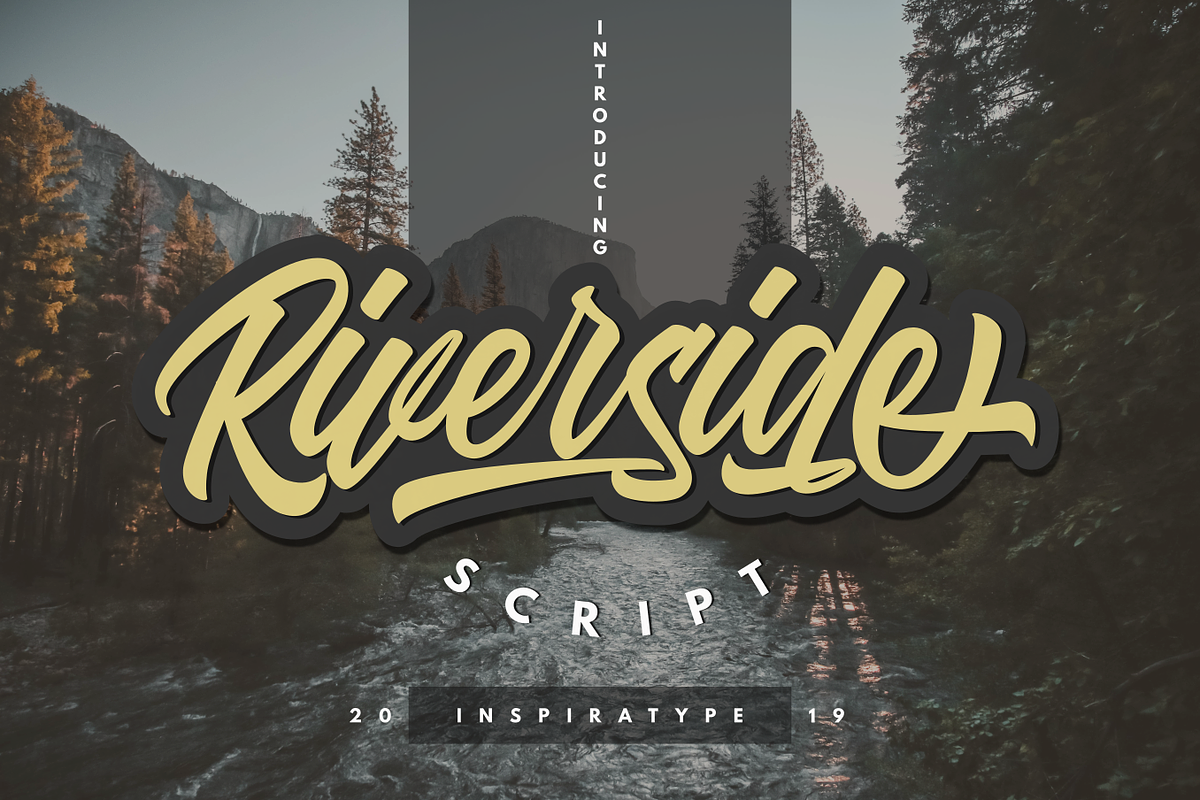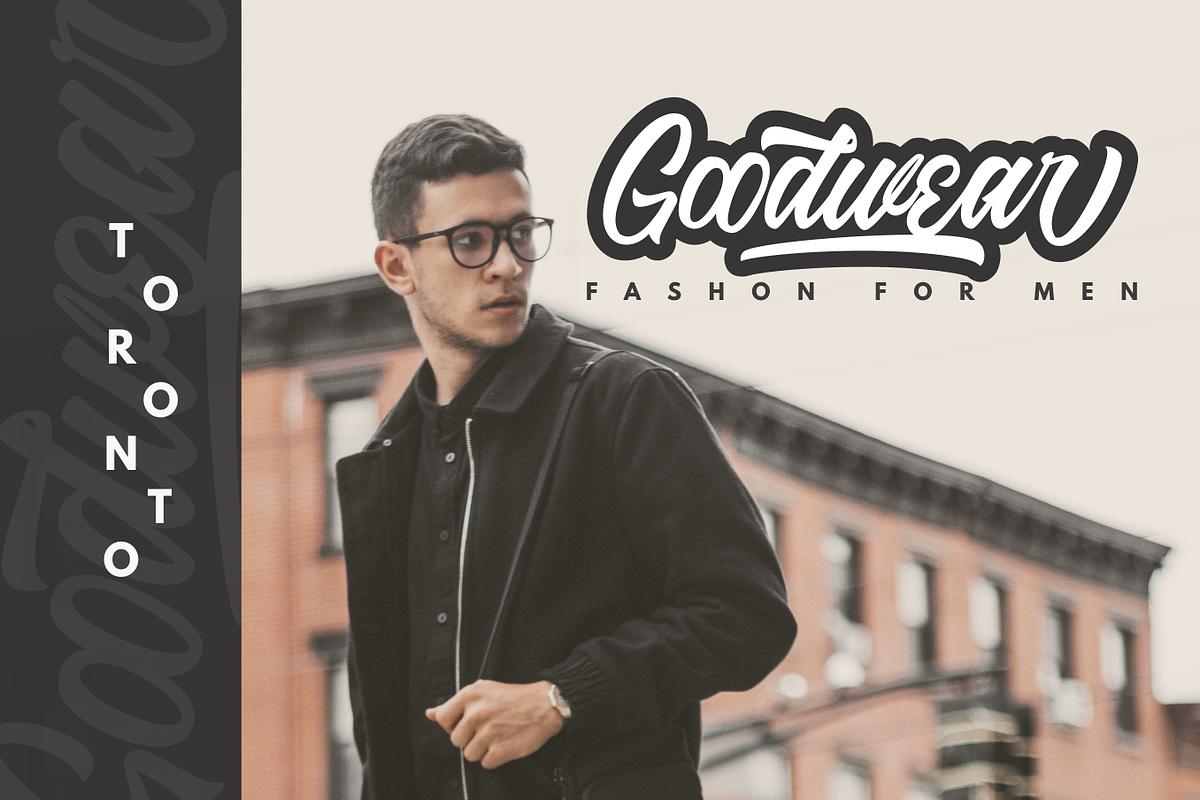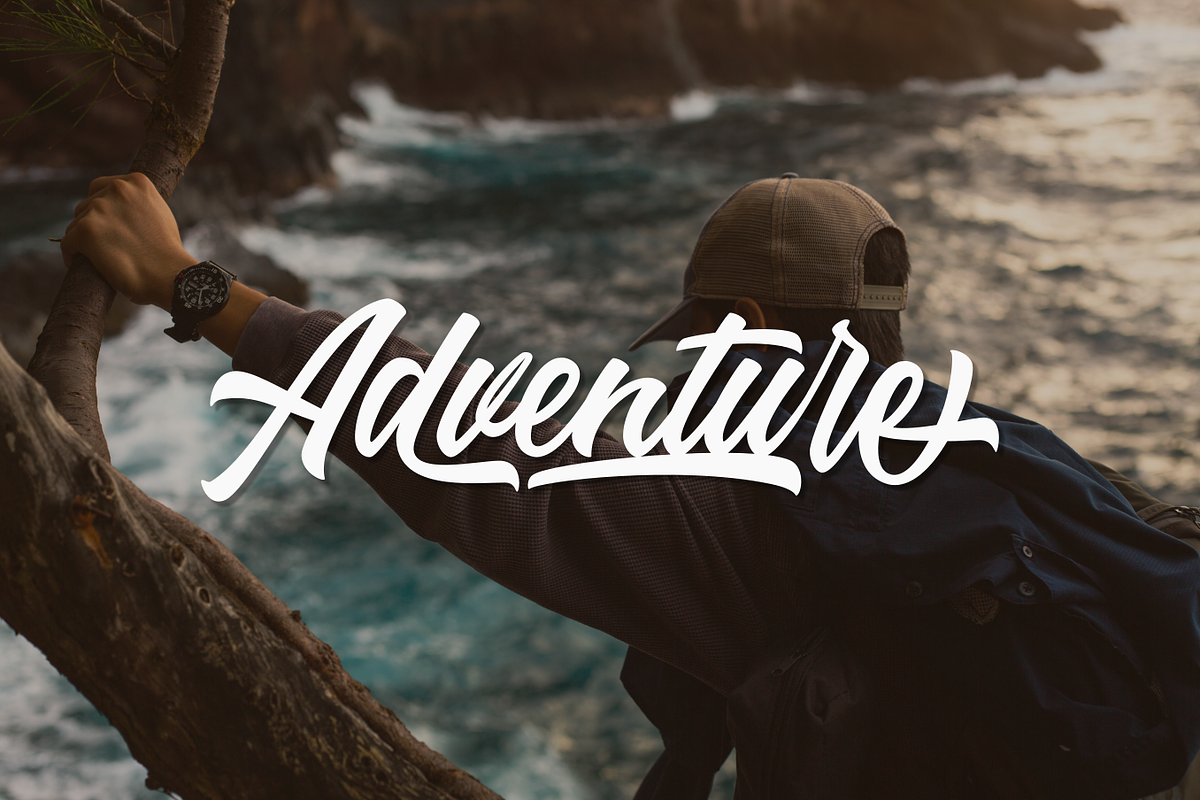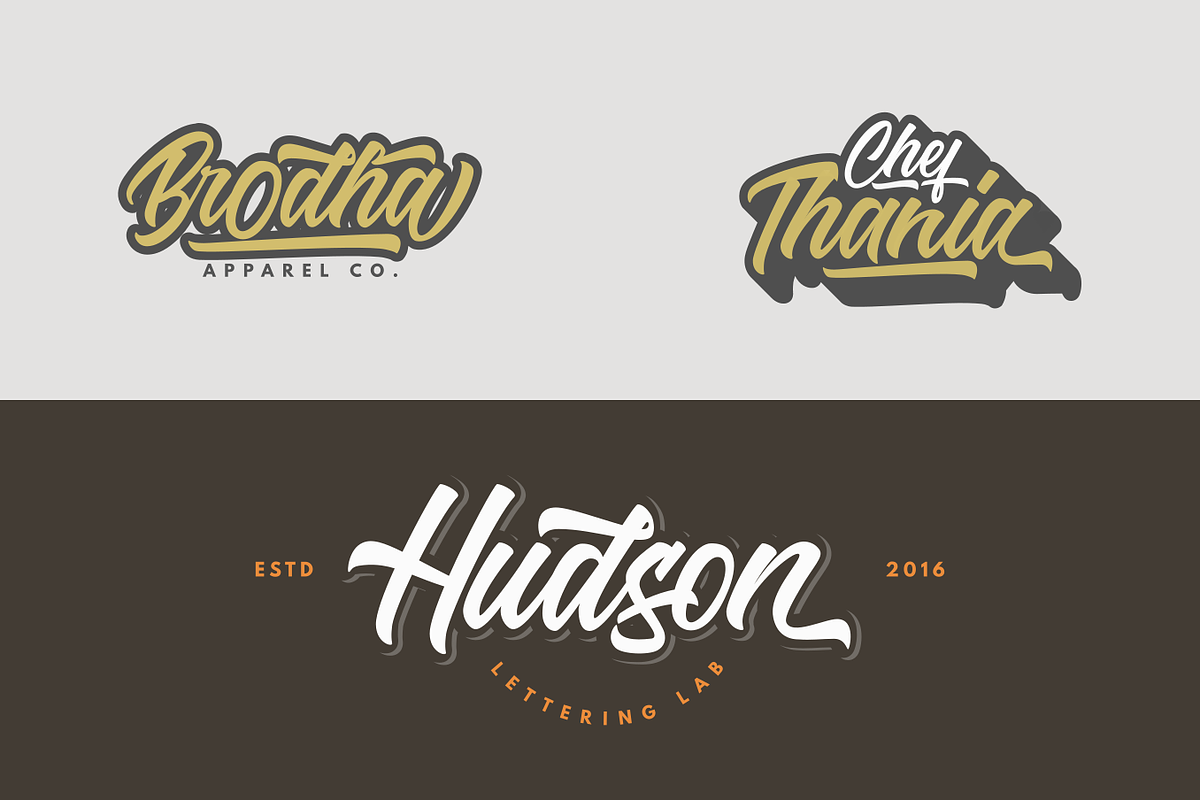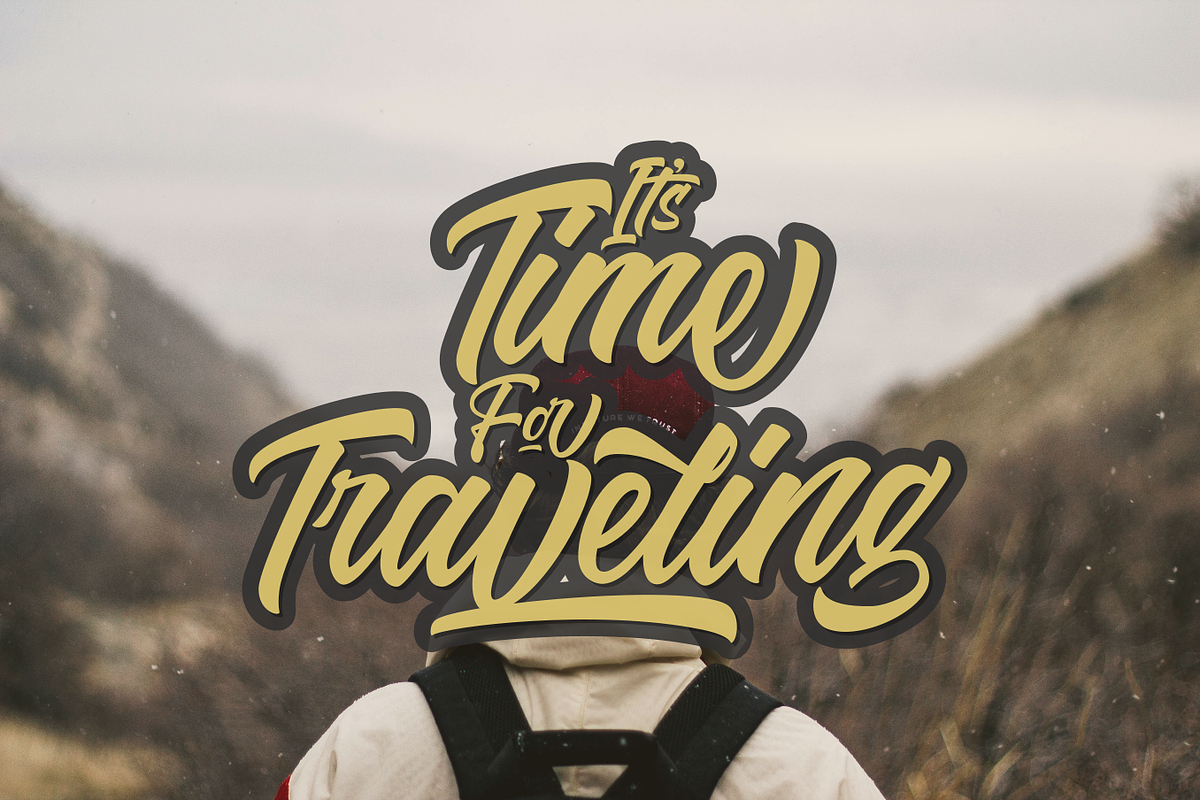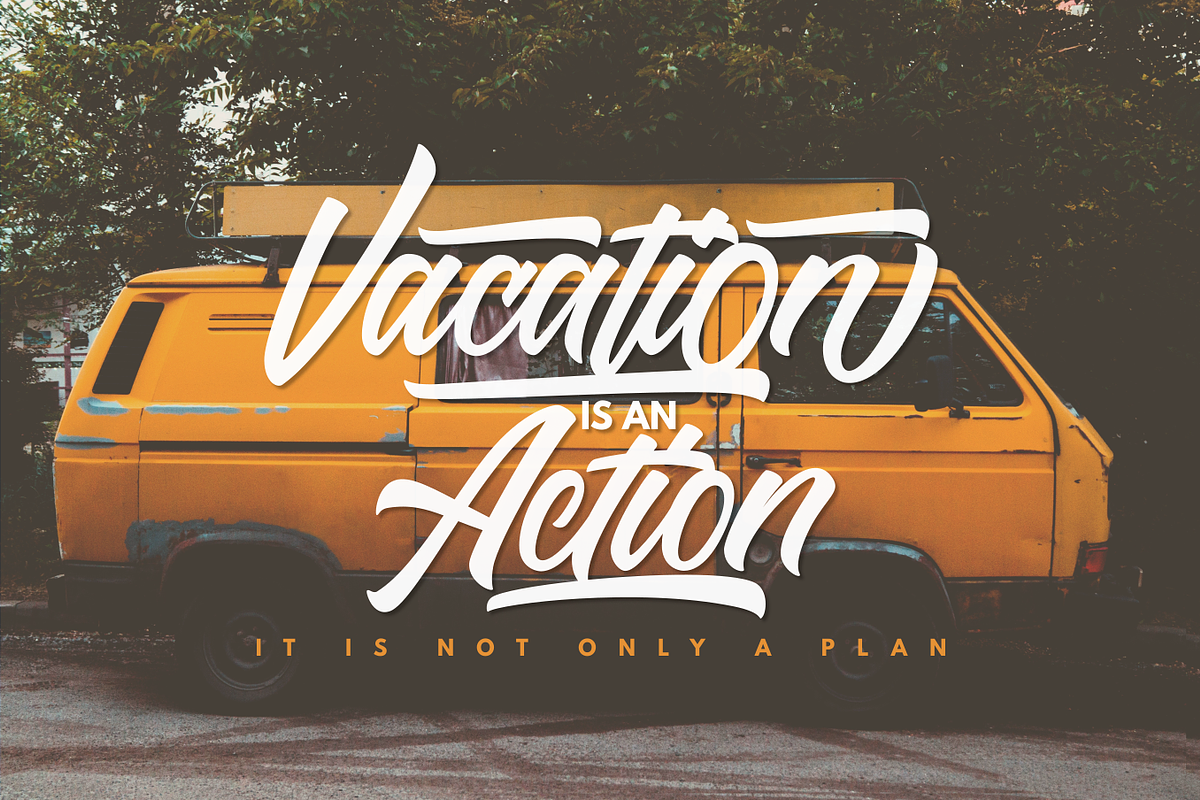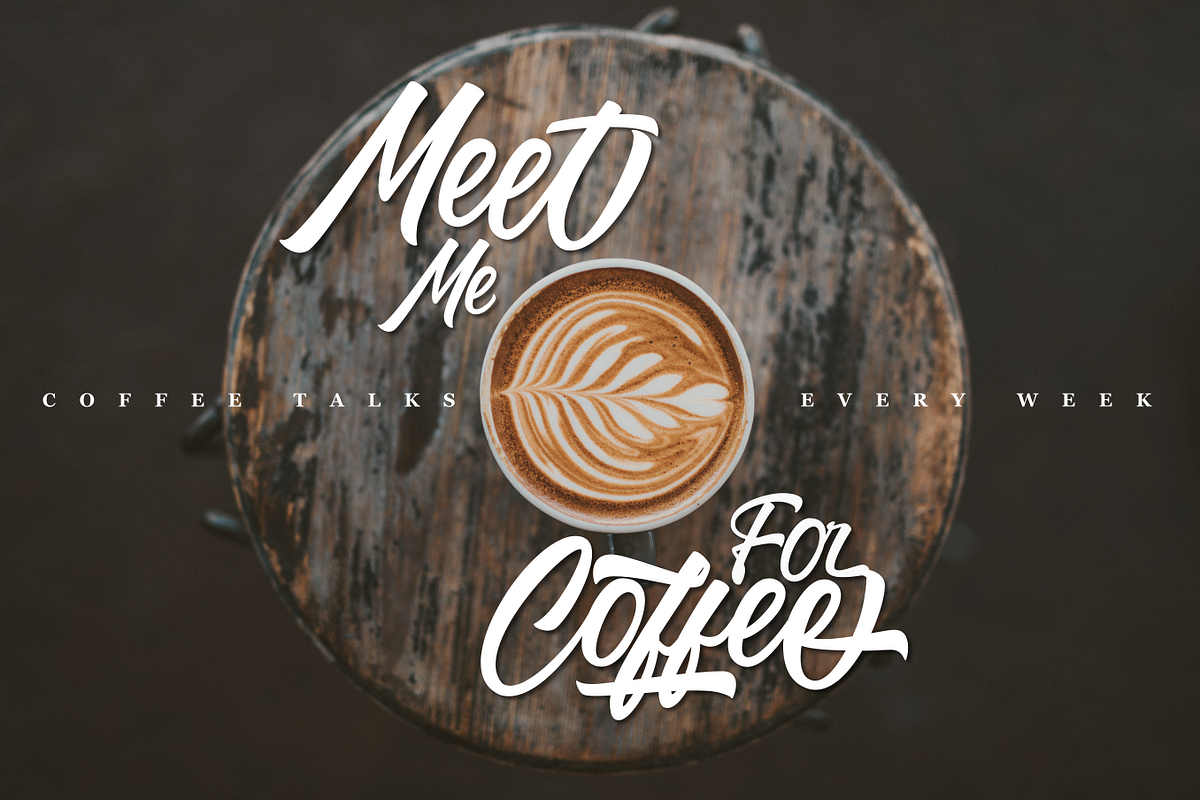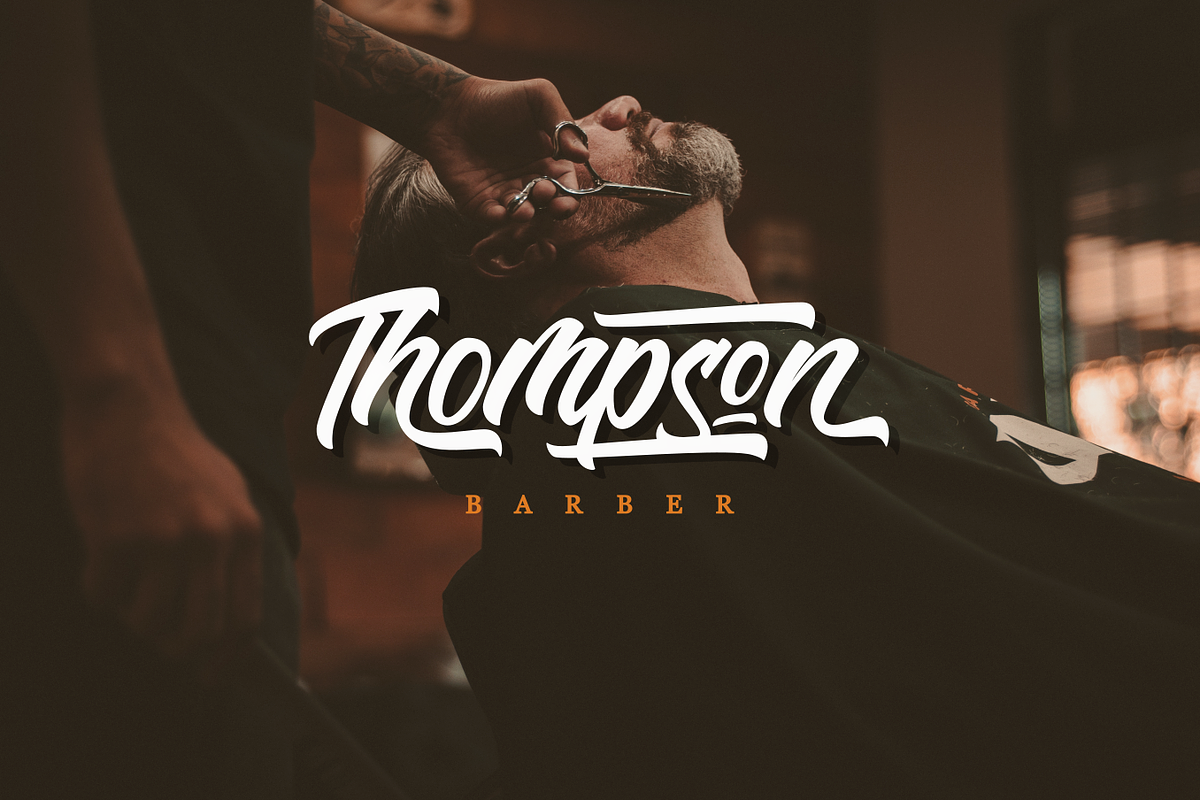
Riverside - Script Font
"Riverside" is a font display that is made by hand, inspired by classic posters.
comes with uppercase, lowercase, numerals, punctuations and so many variations on each character include OpenType alternates, common ligatures and also additional swash to let you customize your designs. Perfect to use for Logotype, Letterhead, Poster, Apparel Design, Label and etc.